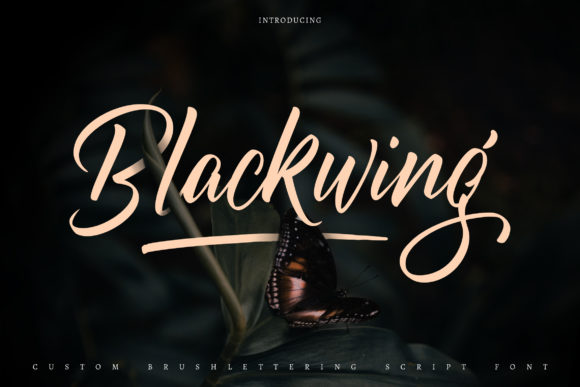
Blackwing Font: A Journey into the Realm of Elegance and Allure
In the world of typography, there lies a font that exudes a captivating aura of sophistication and grace - Blackwing Font. This script font, meticulously crafted by the talented Vunira, is a masterpiece that will elevate your designs to new heights of beauty and distinction. Its bold and powerful strokes evoke a sense of confidence and authority, while its intricate details bestow upon it an aura of timeless charm. Prepare to be mesmerized as Blackwing Font weaves its magic into your creative endeavors.
Blackwing Font: The Epitome of Elegance
Blackwing Font is more than just a font; it's an artistic expression that speaks volumes about your taste and discernment. Its captivating curves and flourishes, reminiscent of a bygone era, add a touch of elegance to any project they grace. Whether you're a seasoned designer or just starting out, Blackwing Font is the perfect choice for adding a touch of class and sophistication to your work.
Blackwing Font: A Masterpiece of Versatility
Blackwing Font's versatility is truly remarkable. Its ability to adapt seamlessly to a wide range of design projects makes it a must-have in any creative toolkit. From wedding invitations that exude romantic charm to captivating logos that demand attention, Blackwing Font delivers every time. Its timeless appeal ensures that your designs will stand the test of time, remaining as captivating and alluring as ever.
Blackwing Font: The Key to Unlocking Your Creative Potential
With Blackwing Font at your disposal, your creativity will soar to new heights. Its intuitive design and ease of use make it accessible to designers of all levels, empowering you to bring your vision to life effortlessly. Let Blackwing Font be your creative companion, guiding you on a journey of artistic expression that knows no bounds.
Blackwing Font: A Symphony of Beauty and Functionality
Blackwing Font is a font that truly embodies the perfect balance between aesthetics and functionality. Its striking visuals captivate the eye, while its exceptional readability ensures that your message is conveyed with utmost clarity. Whether you're creating marketing materials, designing a website, or crafting social media posts, Blackwing Font guarantees that your words will make a lasting impression.
Blackwing Font: A Timeless Investment in Your Creative Future
Investing in Blackwing Font is an investment in your creative future. Its timeless design ensures that it will remain a valuable asset in your design arsenal for years to come. As your skills evolve and your projects grow in complexity, Blackwing Font will continue to be your trusted companion, adapting effortlessly to your changing needs.